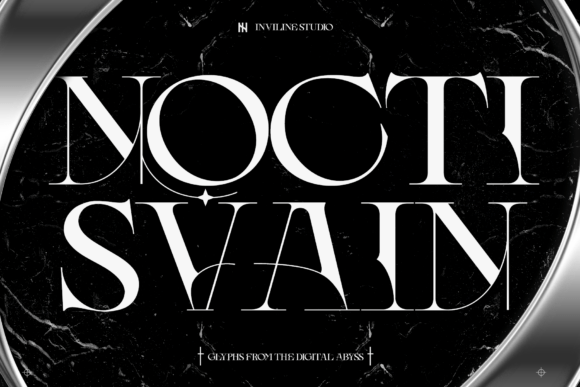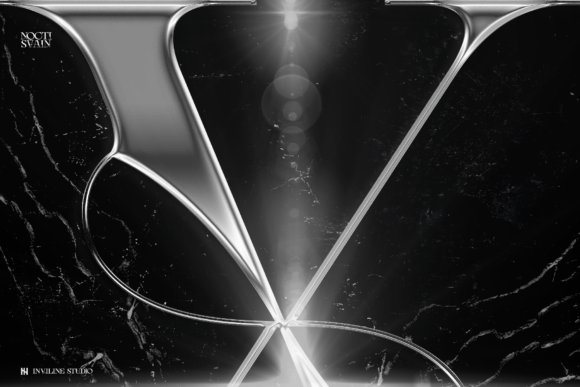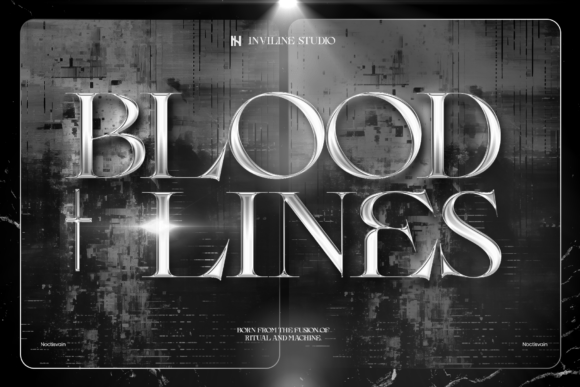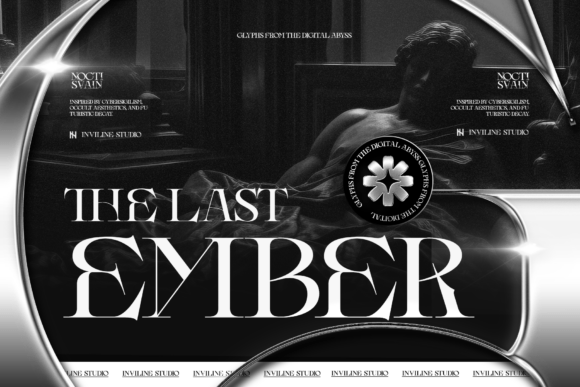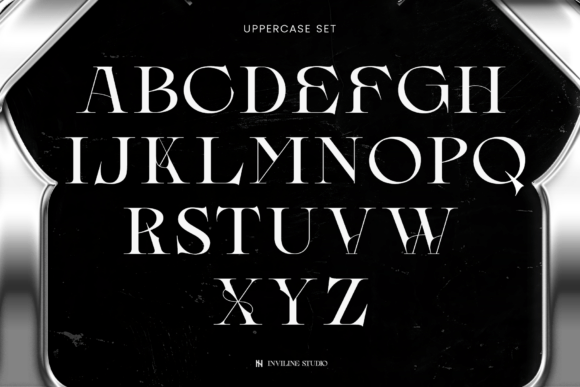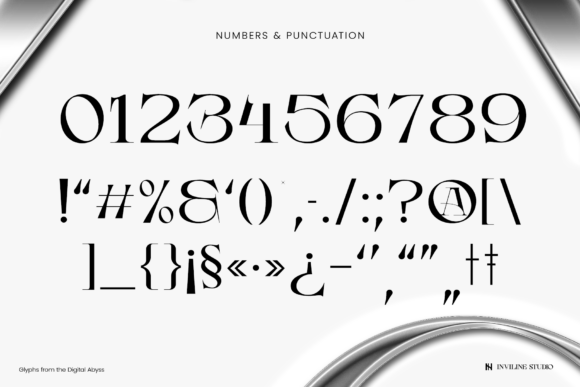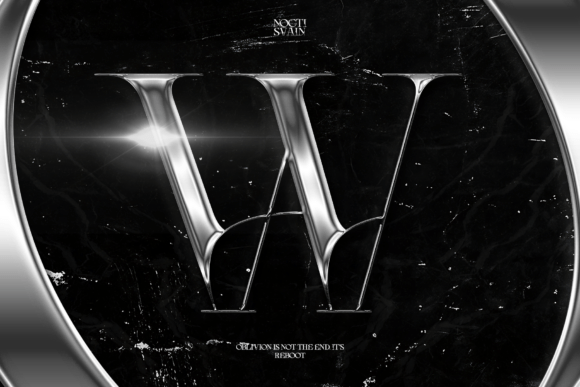
Noctisvain Regular Font
Noctisvain is a dramatic high-contrast display serif font crafted for those who dare to design beyond the ordinary. Inspired by gothic architecture and dark fantasy themes, Noctisvain blends elegance with edgy distortion—making each letterform a striking visual experience. With razor-sharp terminals, haunting curves, and mysterious detailing, this typeface thrives in editorial design, luxury branding, and cyber-occult aesthetics. It’s not just a font; it’s a statement from the shadows.
Use it for posters, fashion spreads, experimental packaging, music artwork, or anything that needs that eerie yet refined aura. Designed by Inviline Studio, Noctisvain is your gateway to the digital abyss.